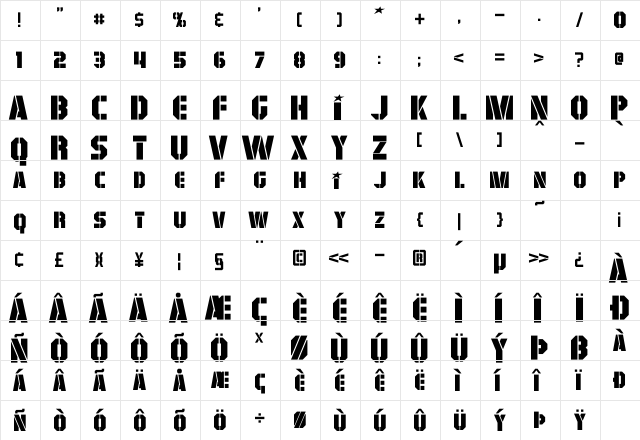
GI Colton Regular
| Foundry | Neale Davidson |
| Designer | Neale Davidson |
Design Context for GI Colton Typeface
GI Colton takes a measured approach to typography — its balanced proportions and neutral character make it a reliable workhorse for both digital and print work.